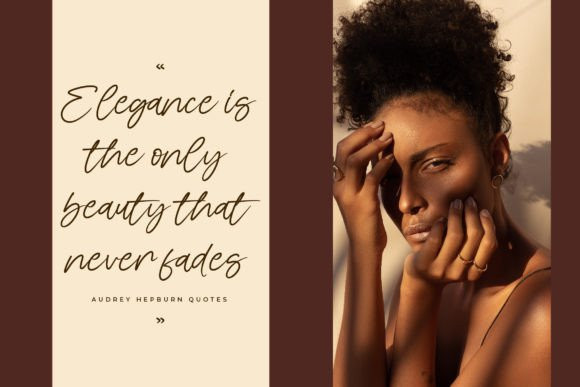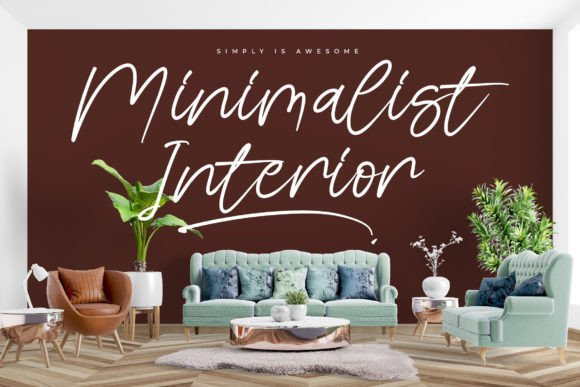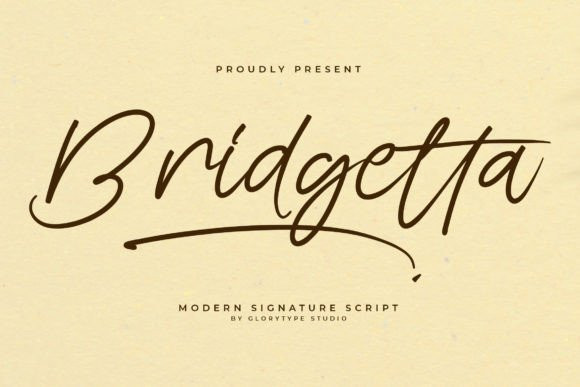
Bridgetta Handwriting Font
Bridgetta Handwriting Font is a stylish and beautiful script font that brings a touch of glamour to any design. Its graceful curves and elegant strokes make it perfect for branding, invitations, or anything that needs a touch of sophistication.